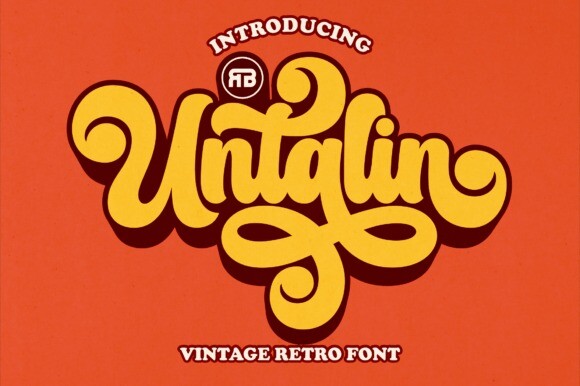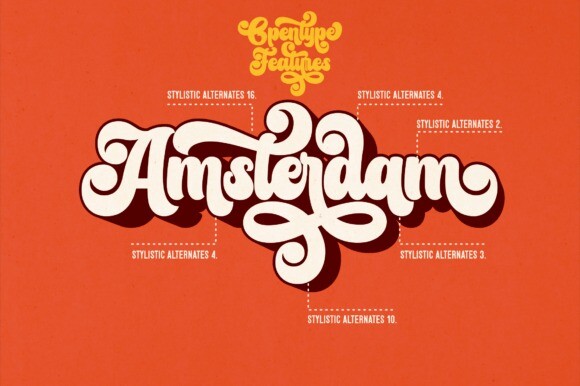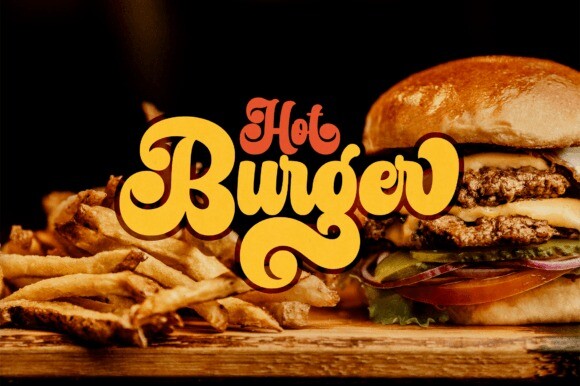
Untalin Font
Untalin is a Vintage retro font, inspired by retro typography and lettering in the 70s and 80s combined with bold typography style. This font is perfect for vintage and retro designs, badges, logos, t-shirts, posters, branding, packaging, signage, book covers, and so much more! It is also PUA encoded which means you can access all of the glyphs and swashes with ease!